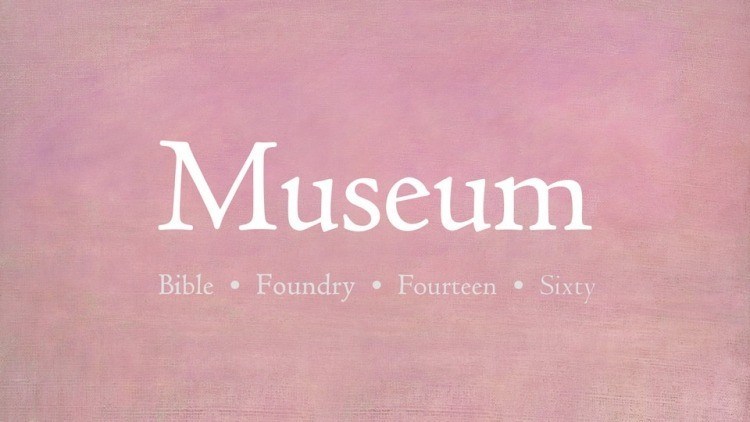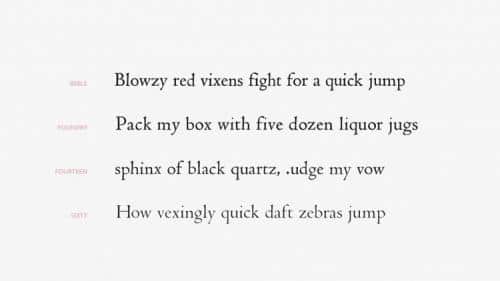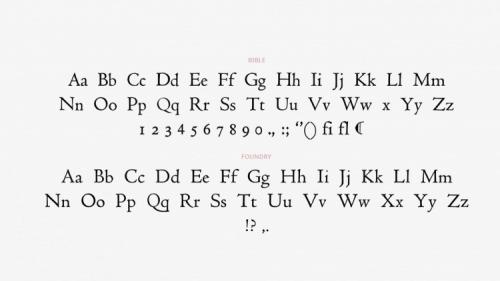
Museum Font is a calligraphic serif font. Museum Font is a classic and clean typeface with smooth shapes that will give an elegant touch to your projects.
It is suitable for formal use and works well both for headlines and as body text in smaller sizes.